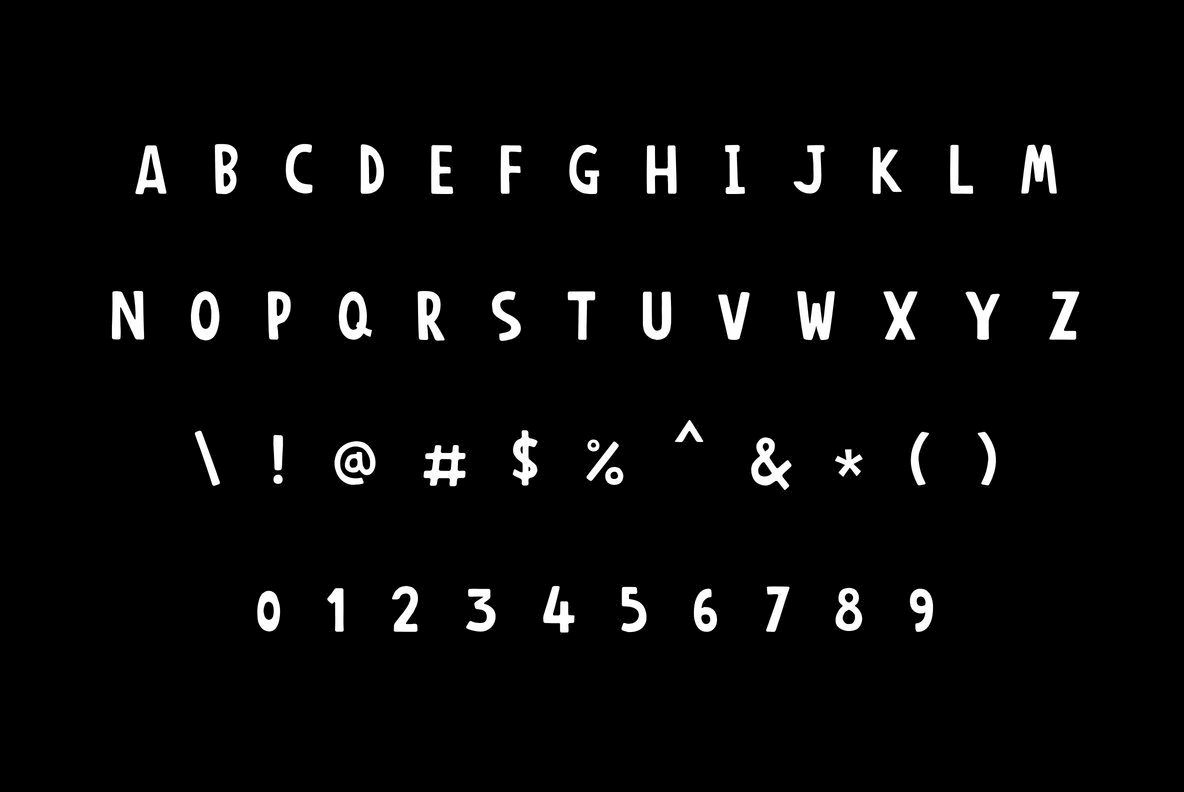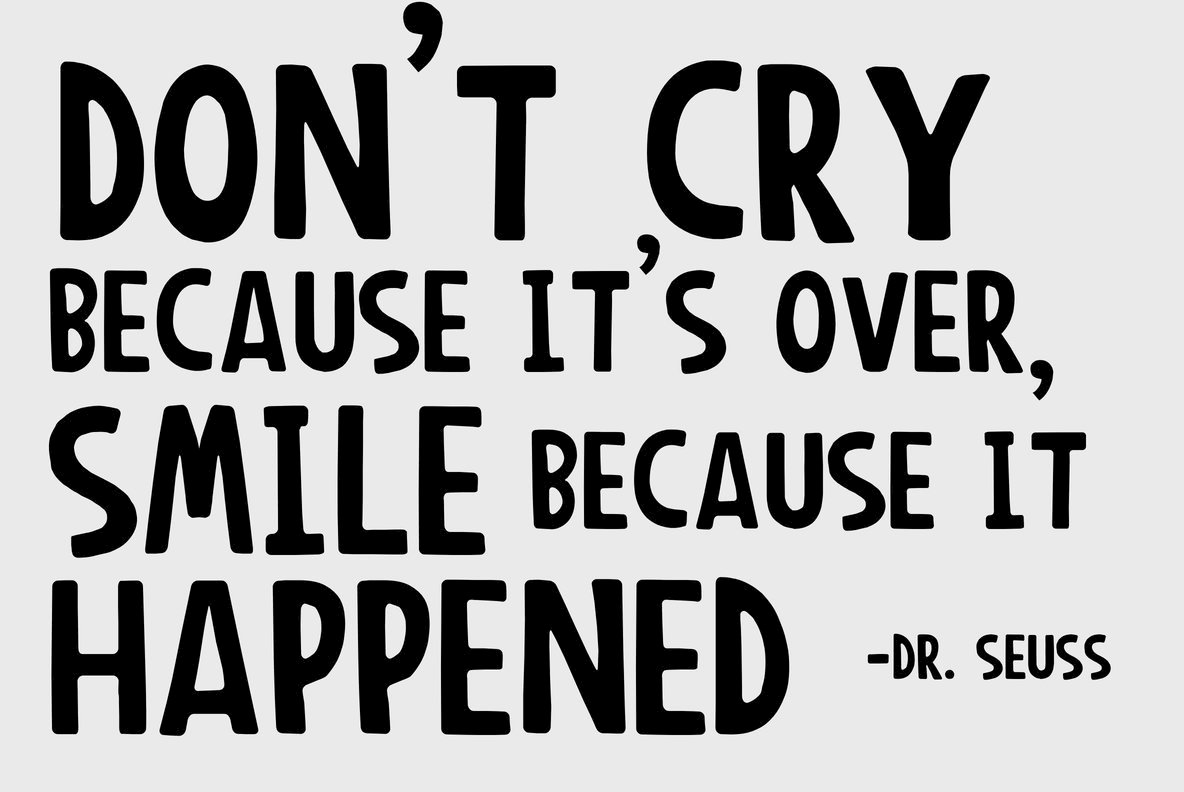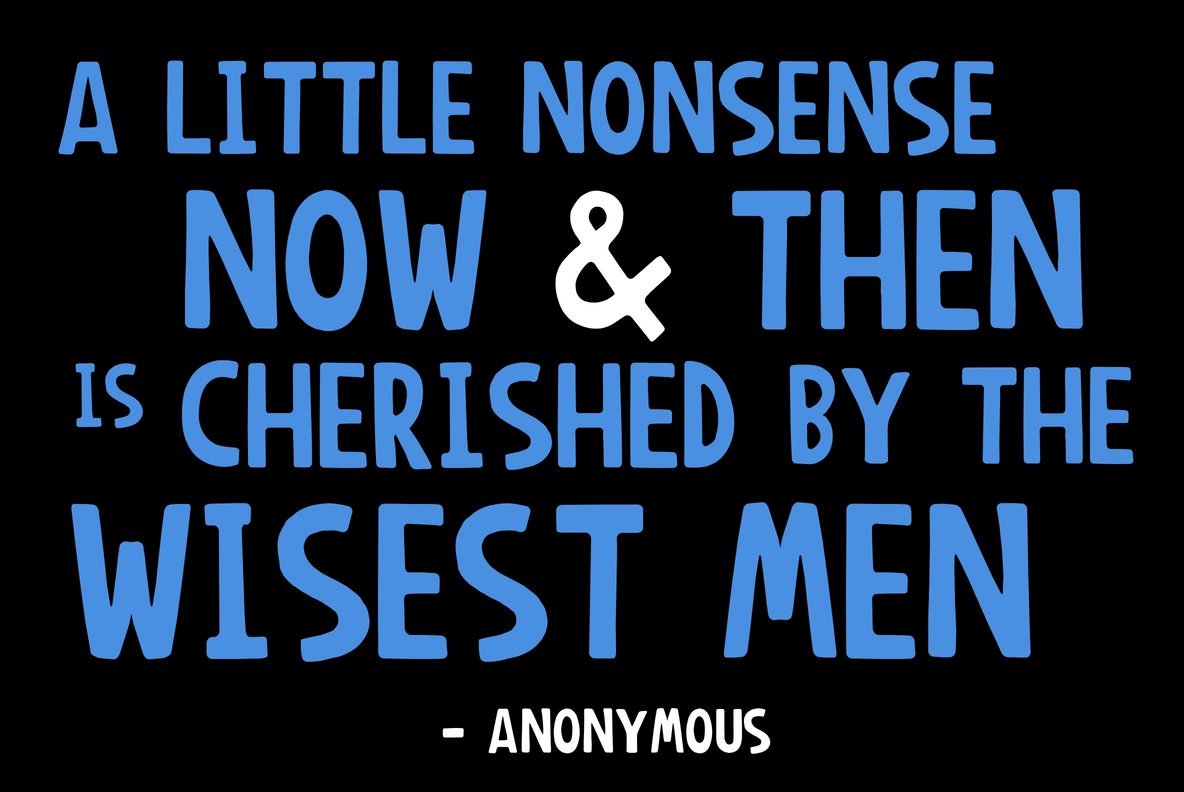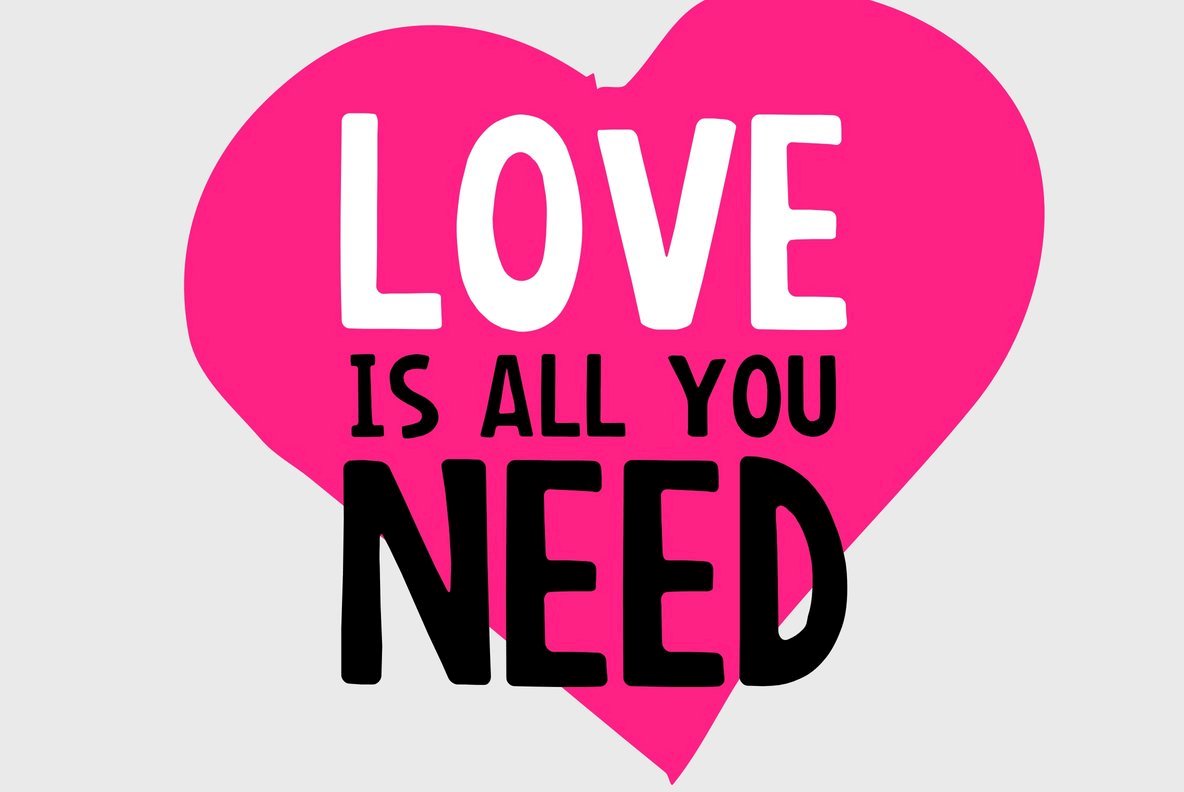
Anonim Round Font
Anonim Round
Anonim Round, crafted by Igor Pancaldi, is a whimsical and engaging font frequently employed in illustration books, cafes, restaurant signage, and advertising for lively products. Despite its simplicity, this font exudes charm, offering designers an eye-catching option for various applications.Anonim Round: A Playful Typeface for Vibrant Designs